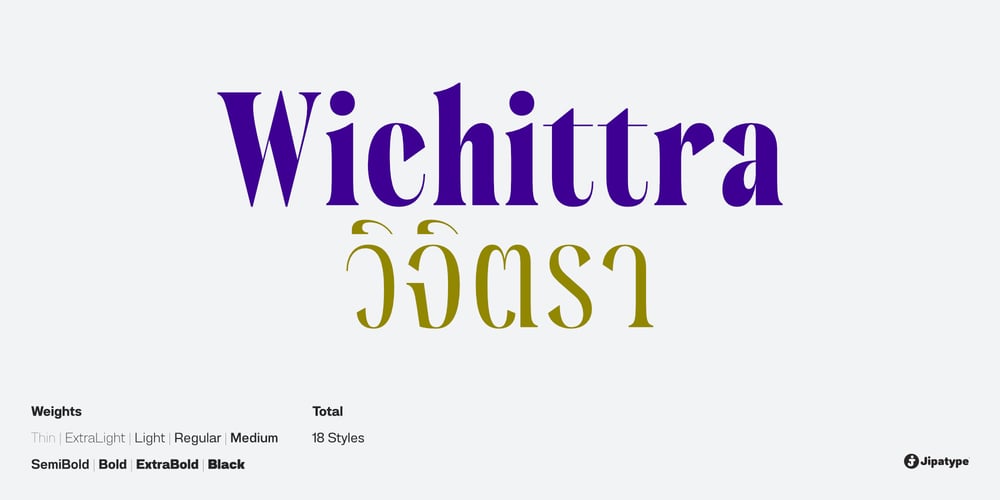
Wichittra Font Family was designed by Anupap Jaichumnan and published by Jipatype. Wichittra contains 18 styles and family package options. Wichittra is a high-contrast serif condensed font. The name of this font is derived from the common Thai women’s name, meaning ‘beautiful’ or ‘Elegant’. It is suitable for use in text headlines, sub-headlines, packaging, posters, and other print media.